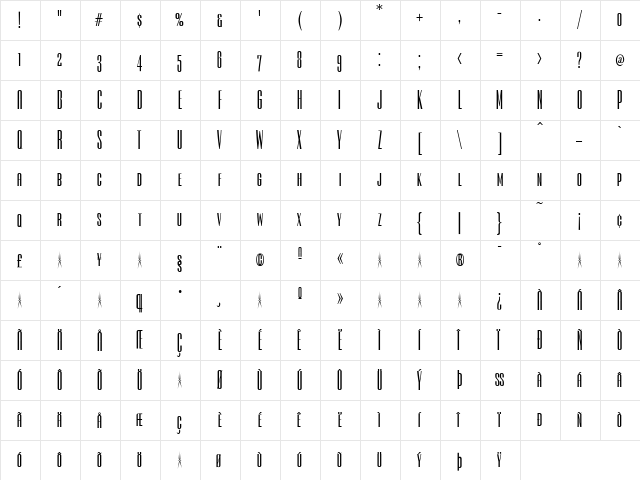
Empire Bold Font Preview
Empire Bold
Empire Bold Font Details
Design Context for Empire Typeface
Empire offers clean, dependable letterforms without strong stylistic allegiance, making it a practical choice for designers who need flexibility. The heavy weight commands attention and anchors typographic hierarchies.